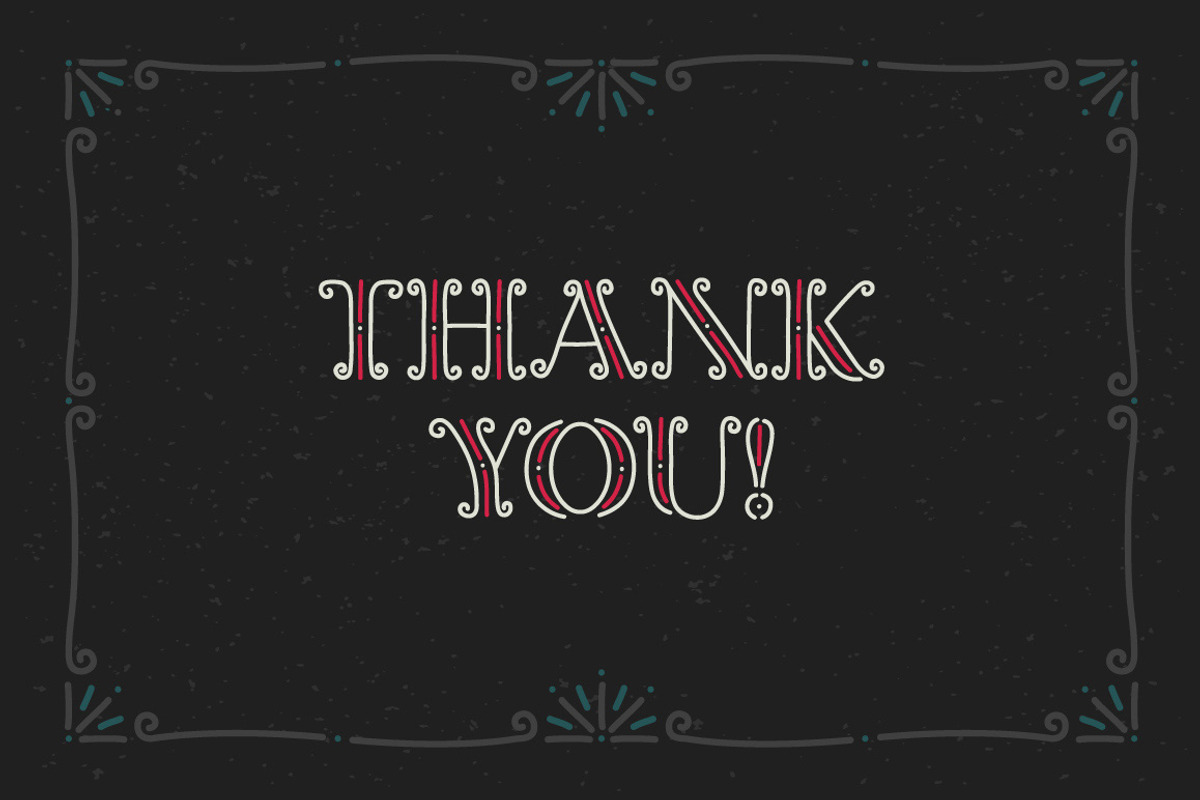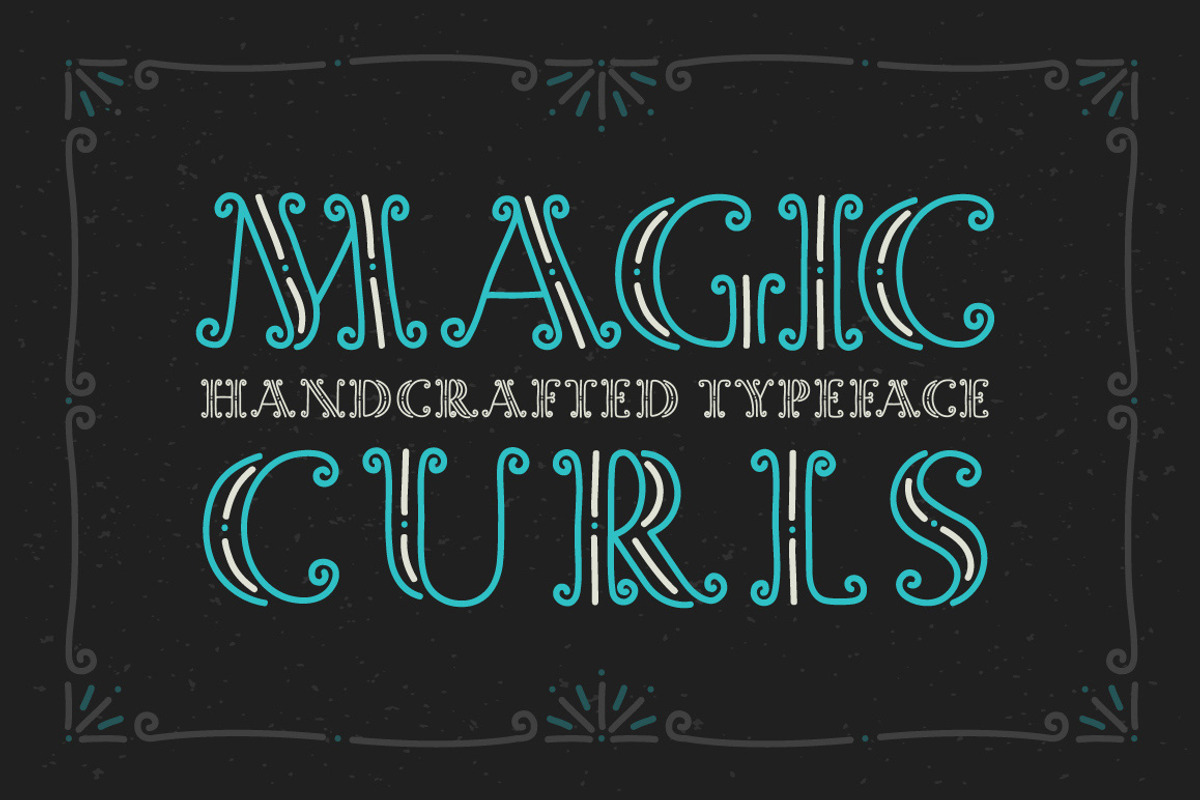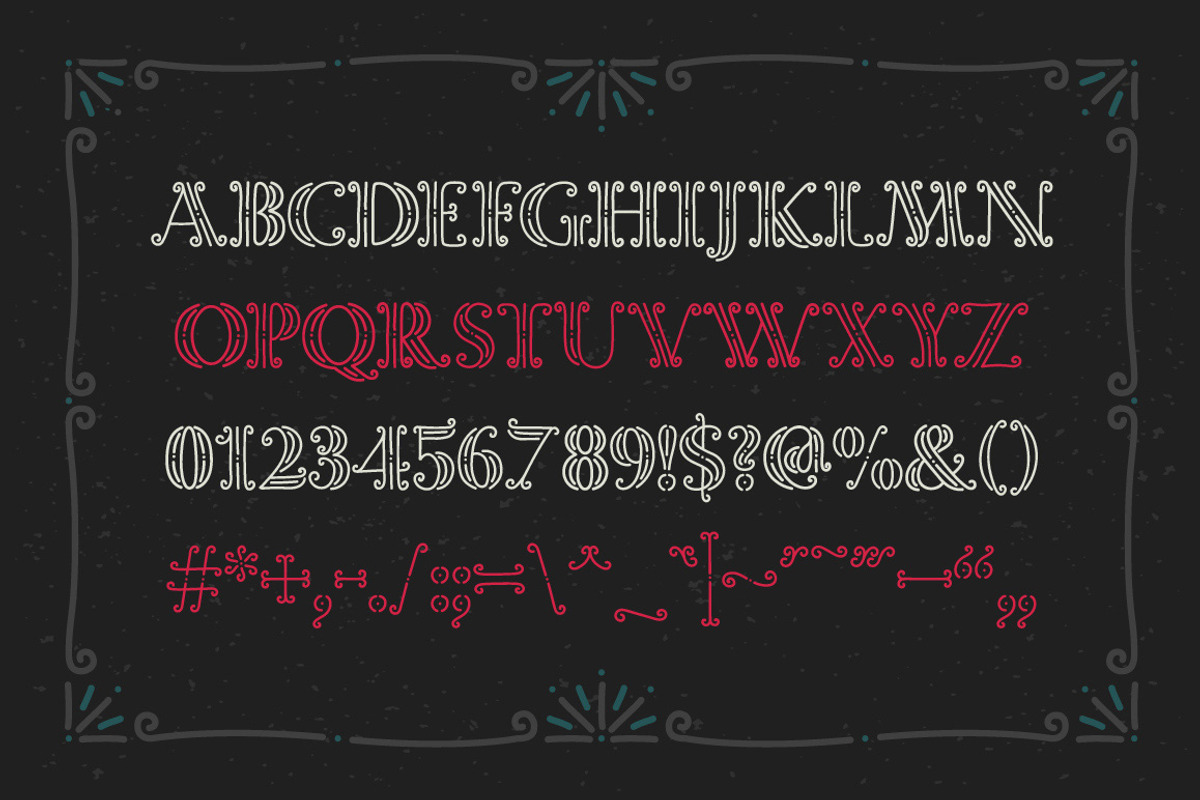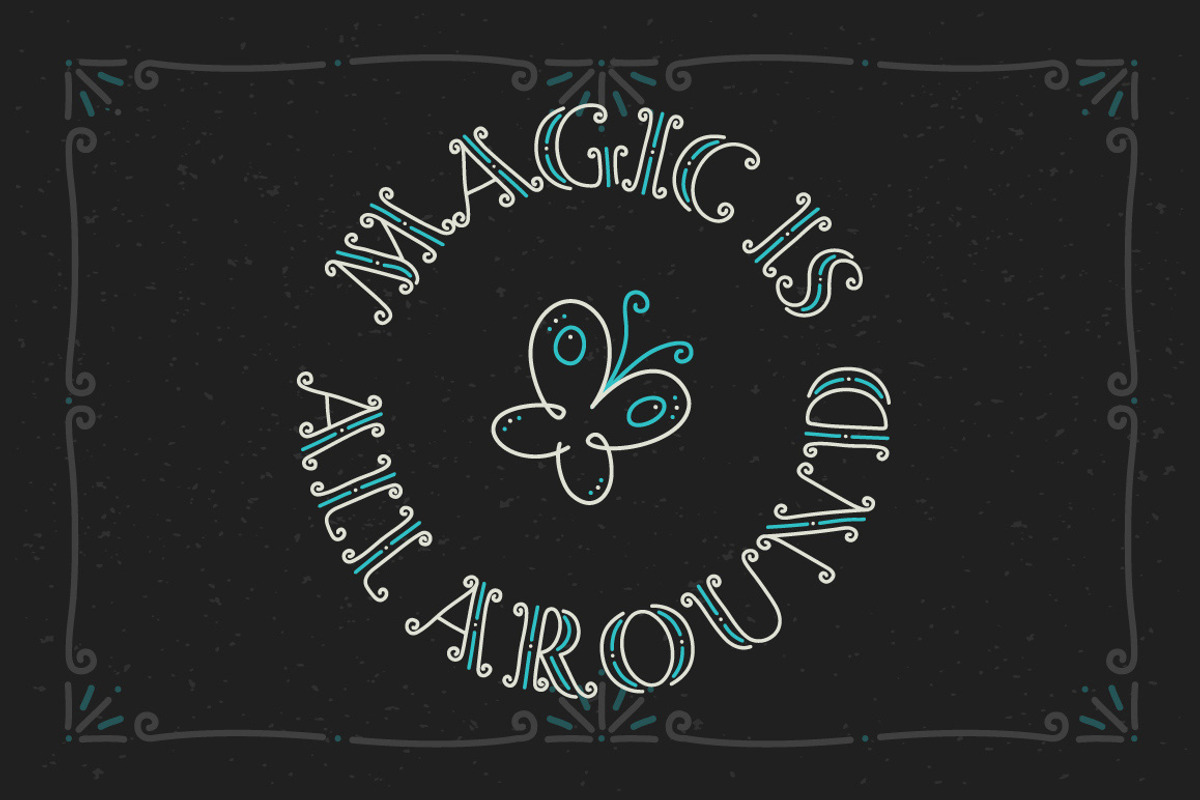
Magic Curls font
Hello! Introducing a decorative display font "Magic Curls". This handcrafted typeface has a magic look and will suit perfect for some fantasy fairytale design or whatever you like :)
Note: This font contains only latin characters (all available characters you can see on the second screenshot)